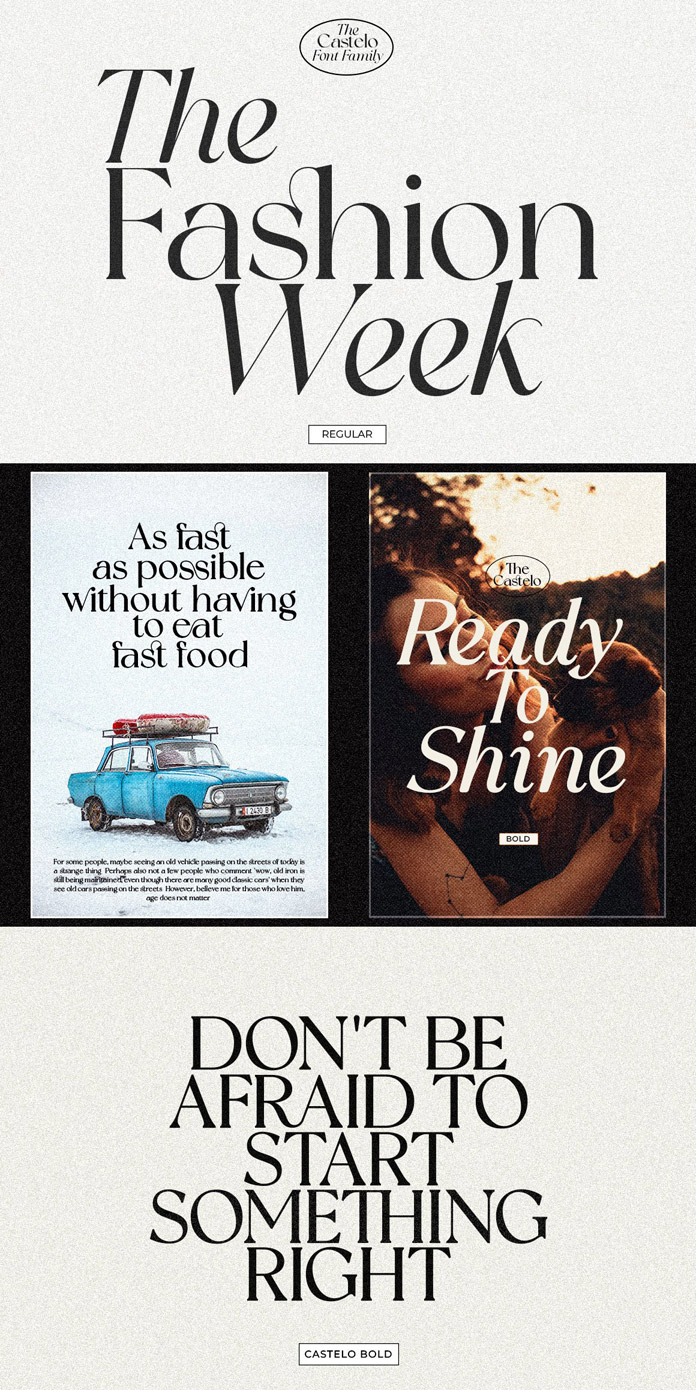
Say hello to Castelo, an elegant serif font for branding and logo designs.
Just recently, Zane Studio came up with an elegant serif font that is well-suited for branding projects and logo designs. Named Castelo, the font contains uppercase and lowercase letters as well as multilingual symbol number punctuation. When you purchase this typeface, you will get a classy, elegant, and unique font for stunning logo designs. Just click on the following link to learn more.